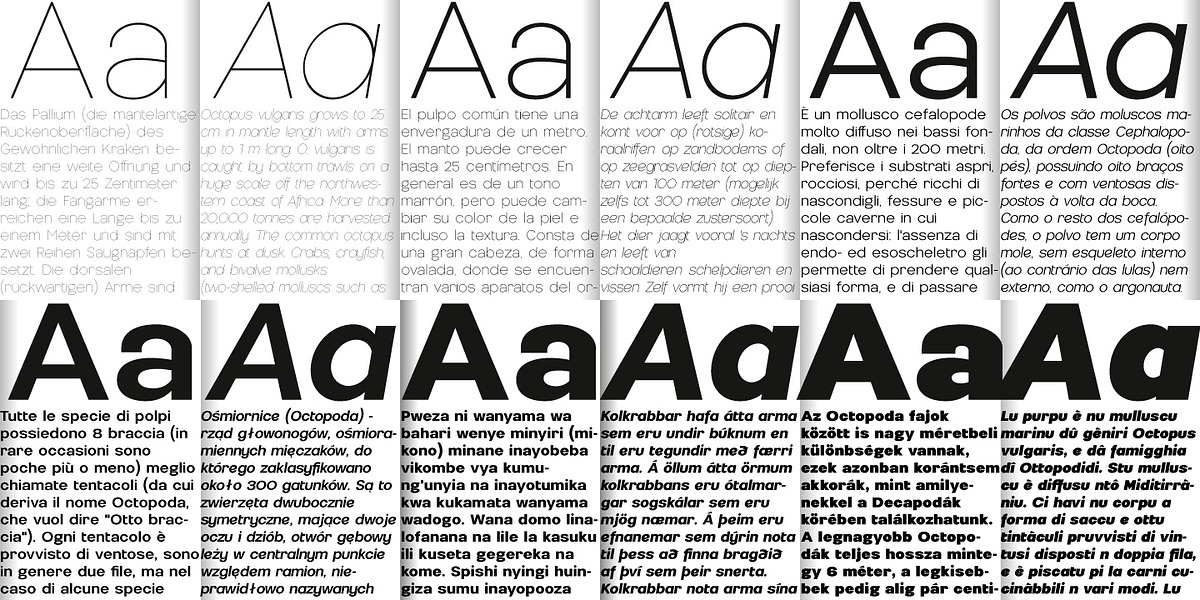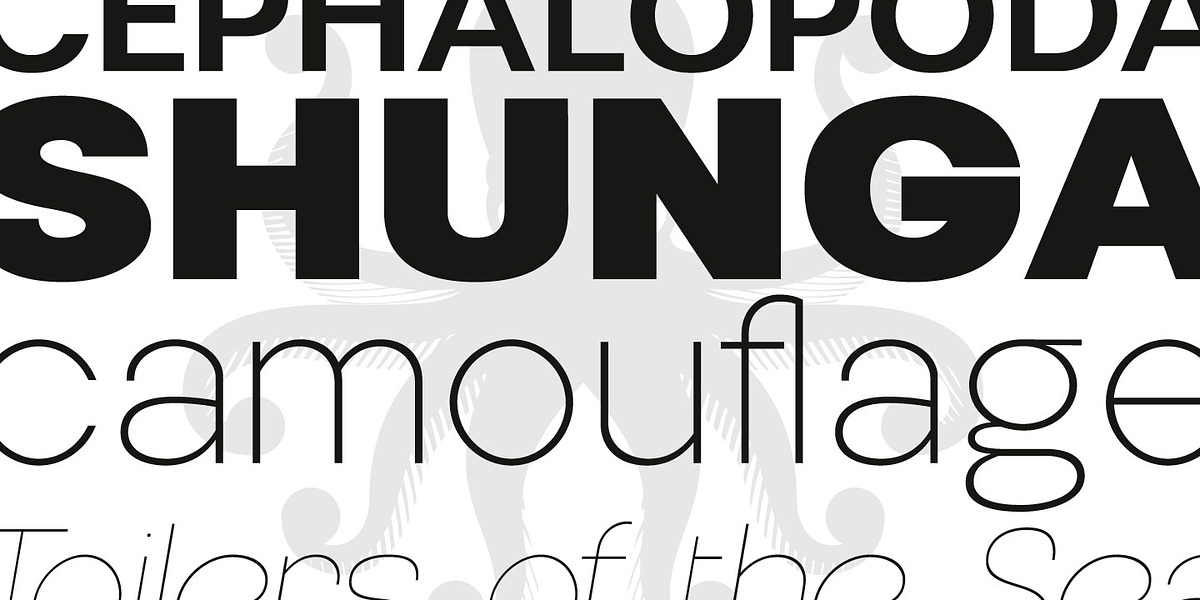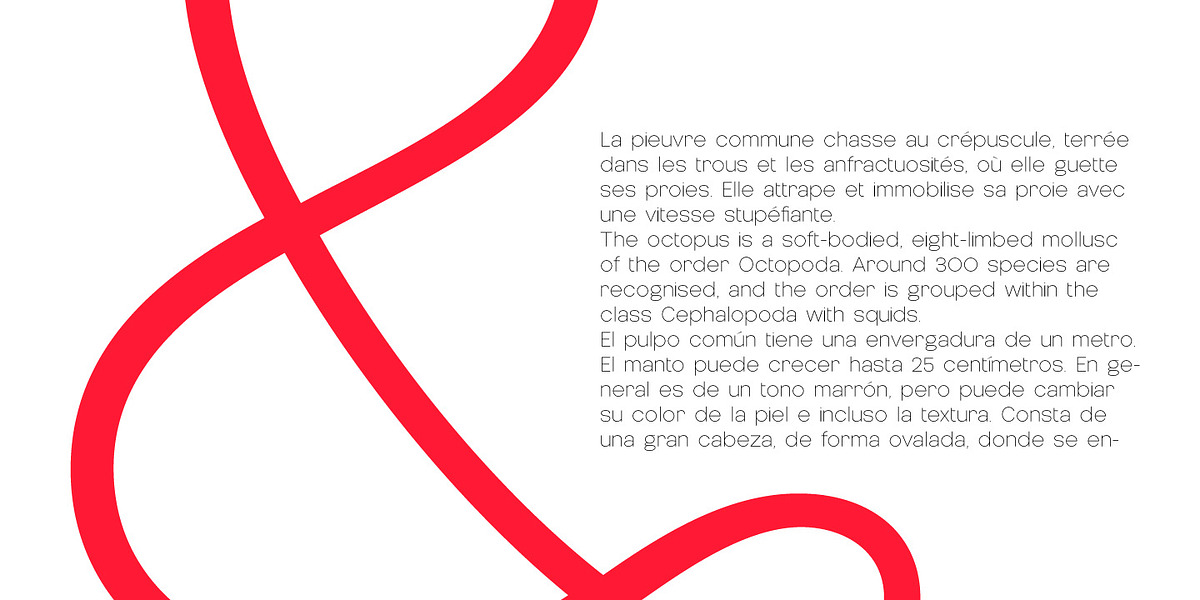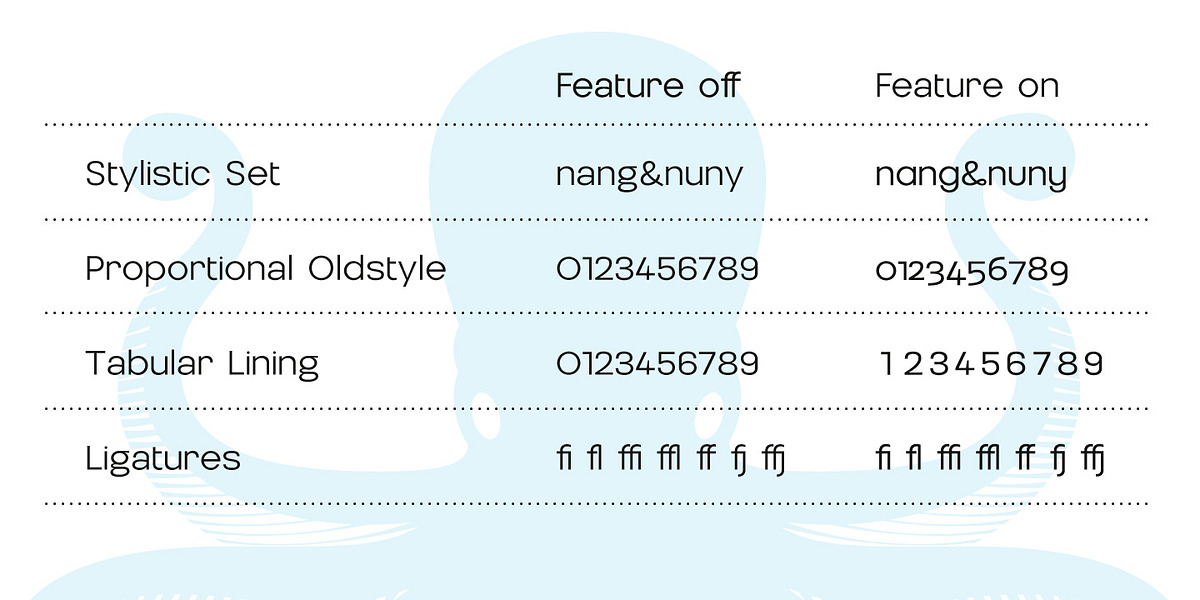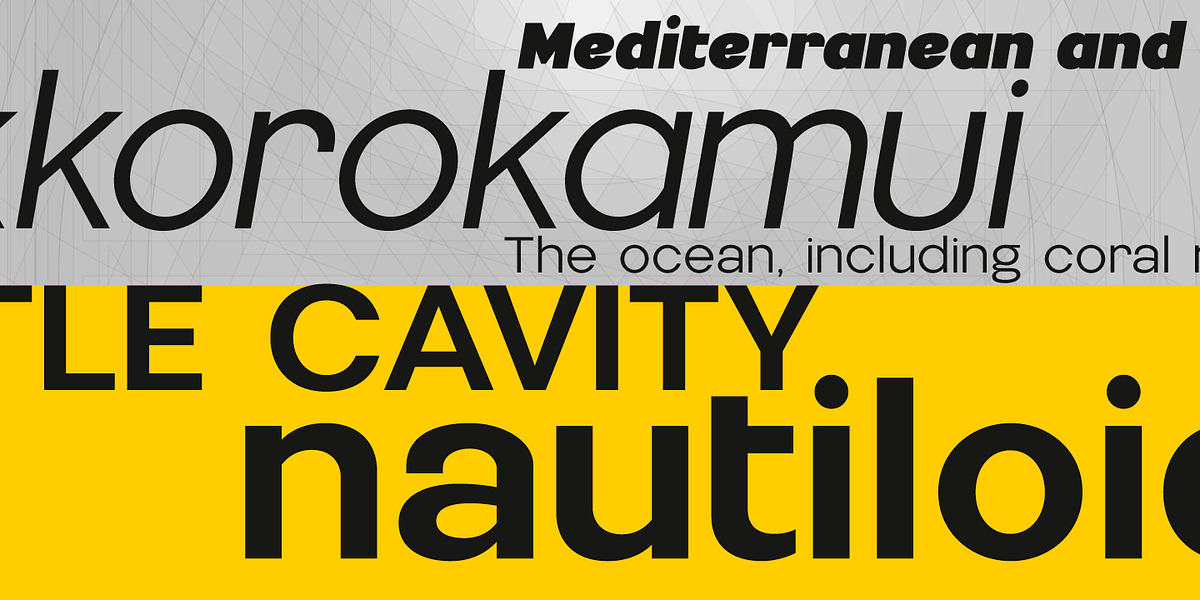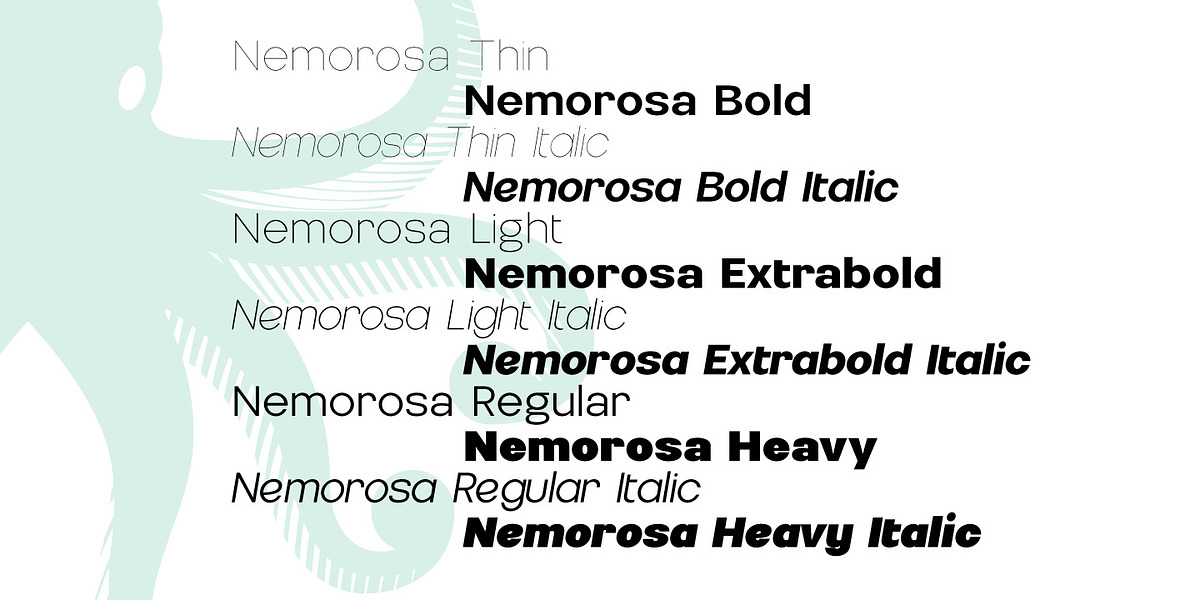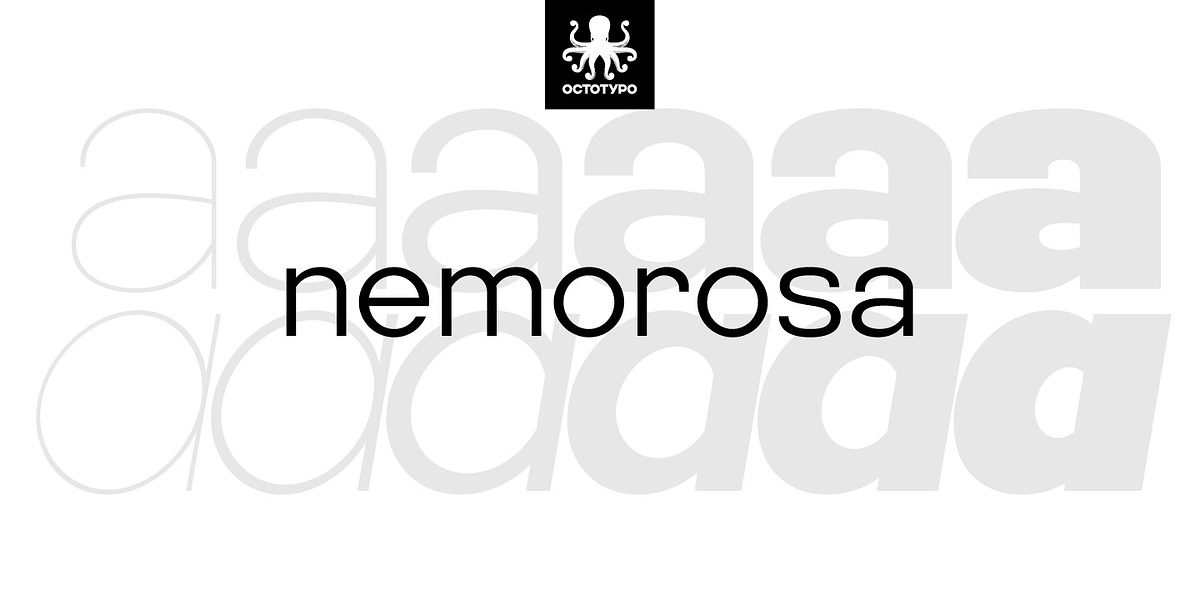
Nemorosa
Nemorosa is a geometric sans-serif font family inspired by the sweet sixties. It features a retro aesthetic and offers six weights with italics for versatility. The font includes alternates, allowing designers to customize their typography and create unique looks for text and logos.